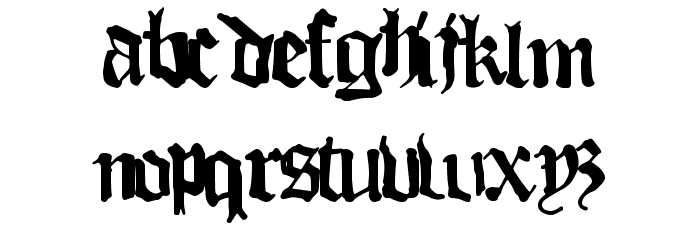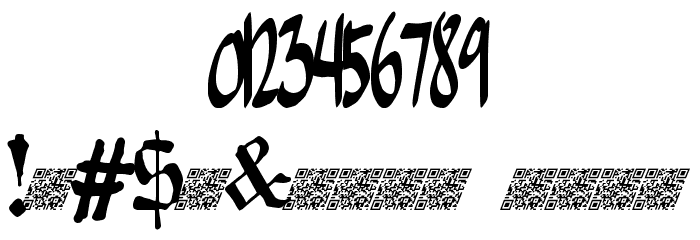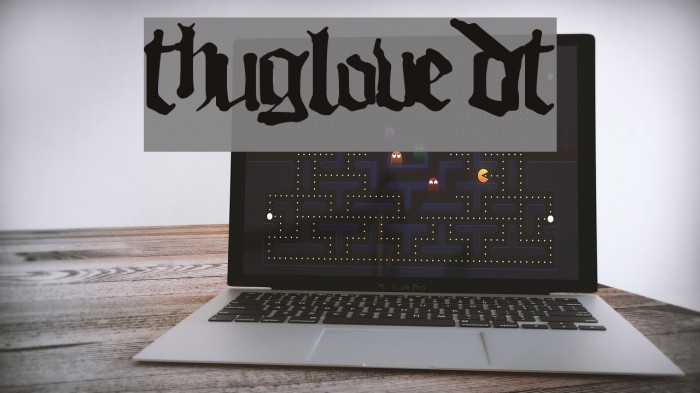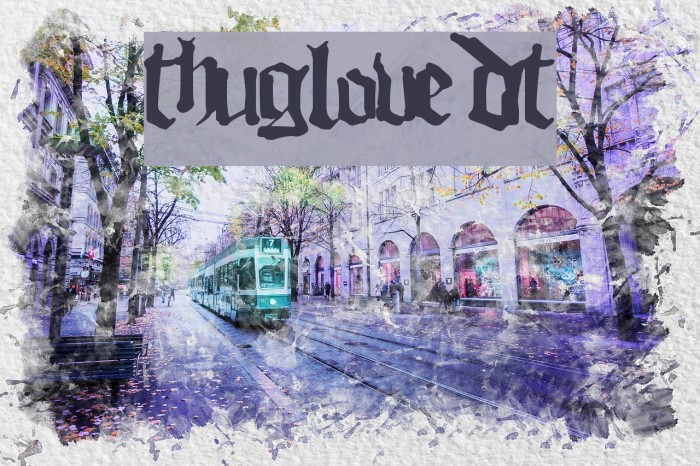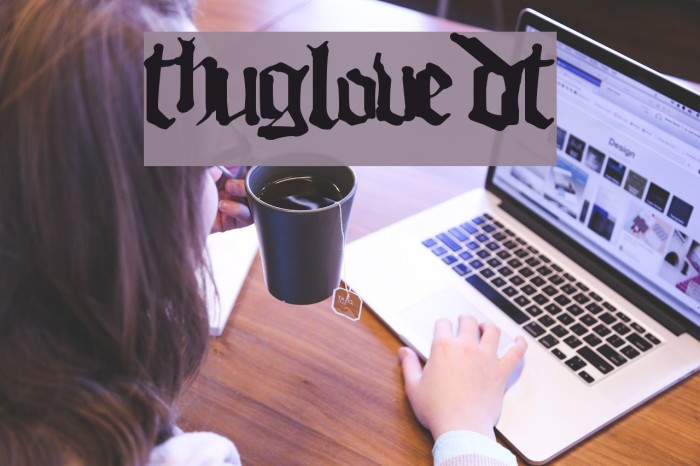
ThugLoveDT Font
This font exhibits a bold and dramatic blackletter style, characterized by its intricate and ornate letterforms. The strokes are thick and angular, with sharp edges and a gothic flair that evokes a sense of historical elegance. The uppercase and lowercase letters maintain a consistent style, with elaborate curves and pointed terminals. The numerals are equally stylized, matching the overall aesthetic with their bold presence. Special characters are designed with the same attention to detail, enhancing the font's decorative appeal. This font is ideal for projects that require a touch of medieval or vintage charm, making it suitable for use in logos, headlines, and artistic designs.
A bold blackletter font with intricate, gothic-inspired letterforms.
- Proposed Projects: Ideal for logos, headlines, posters, and designs requiring a vintage or gothic aesthetic.
- Category: Blackletter
- Overall Style: Vintage
- Use Case: Logos, Headlines, Decorative designs